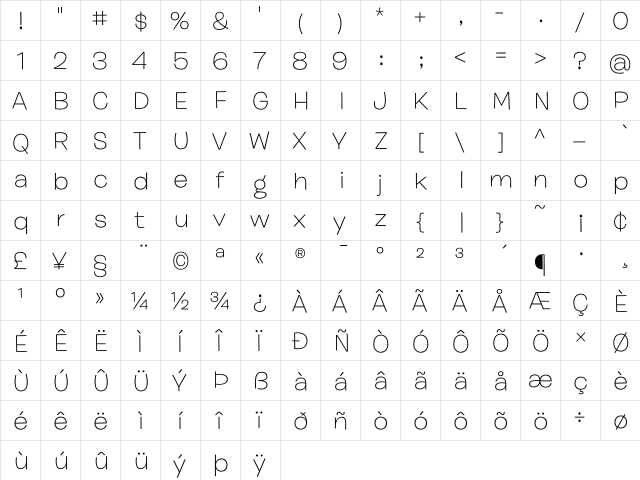
Burbank Big Wide Light
Design Context for Burbank Big Wide Typeface
Burbank Big Wide offers clean, dependable letterforms without strong stylistic allegiance, making it a practical choice for designers who need flexibility. The delicate stroke weight brings airiness and refinement to layouts.